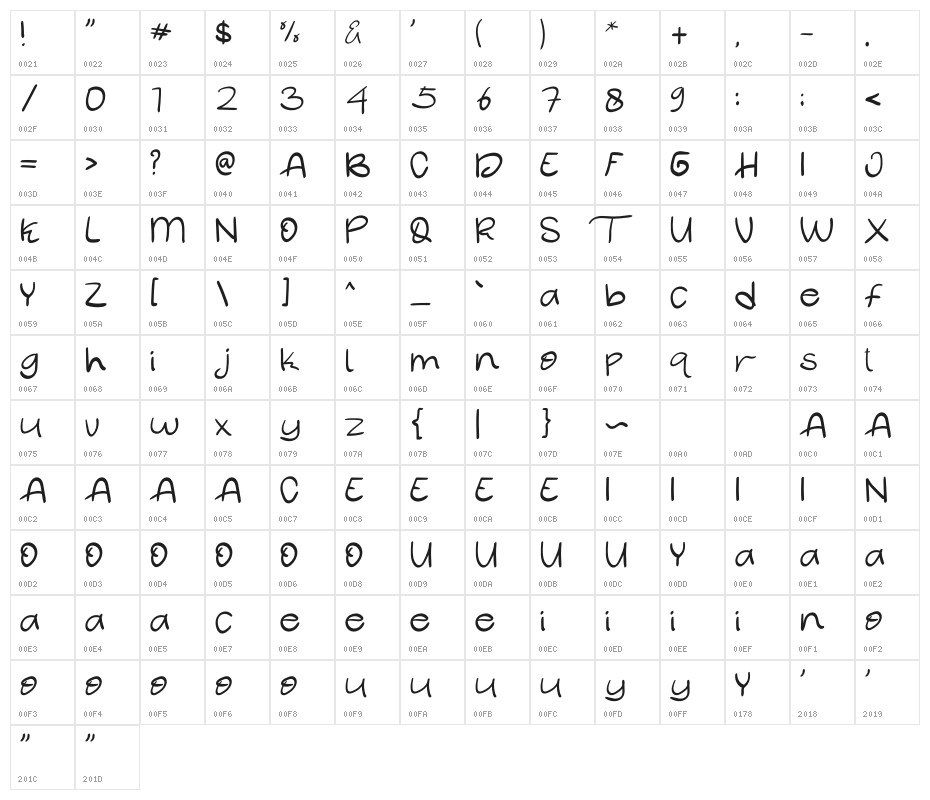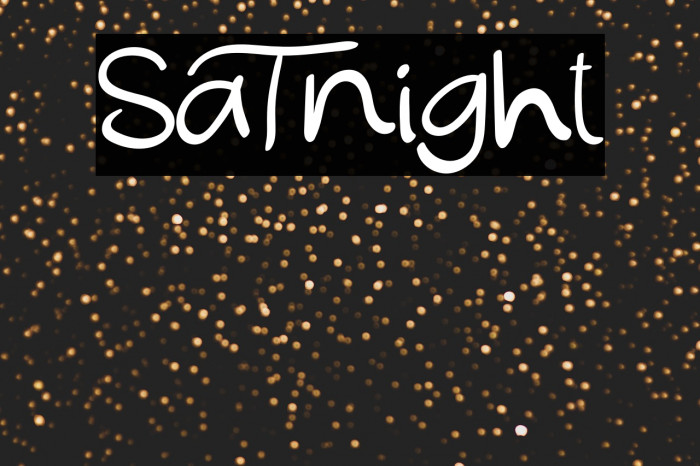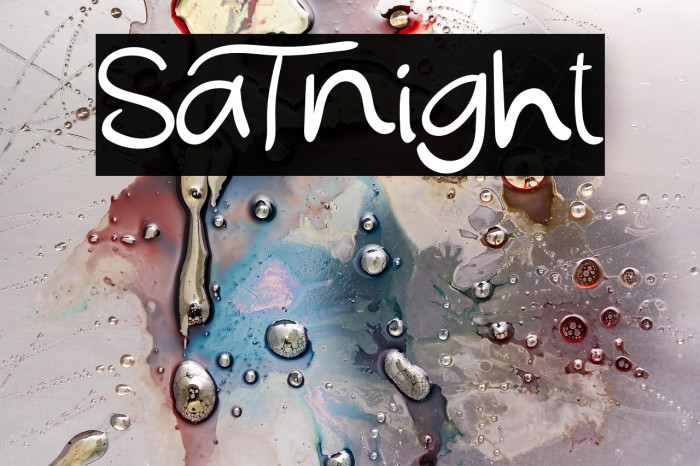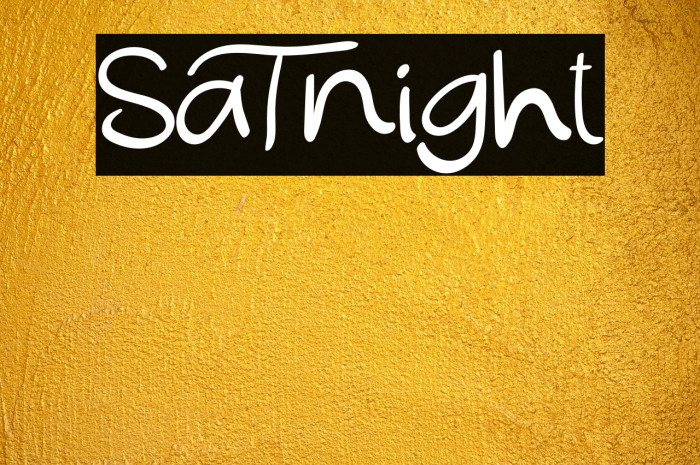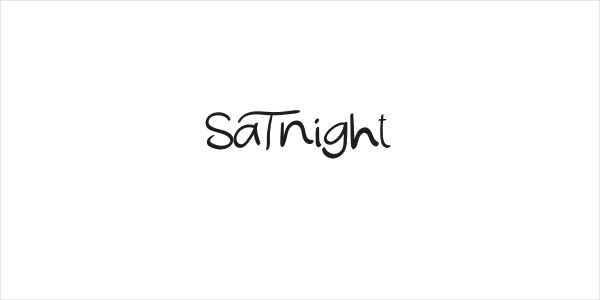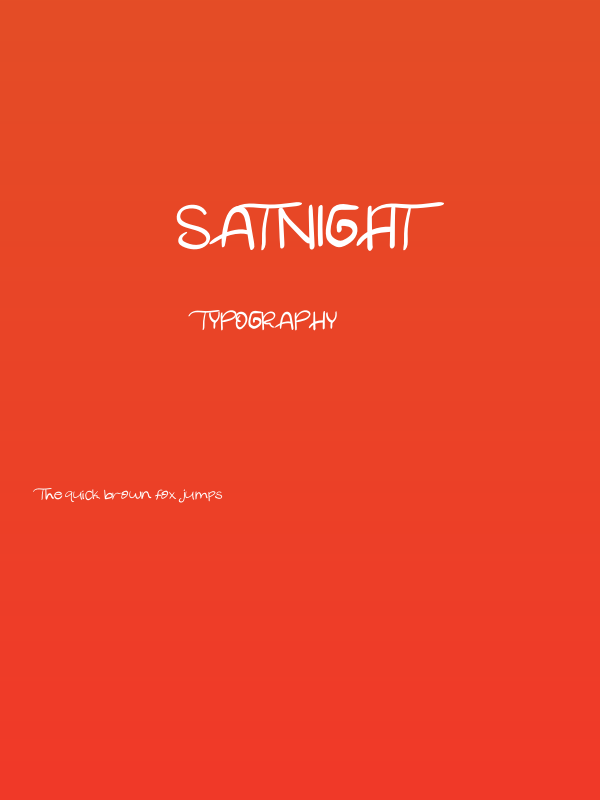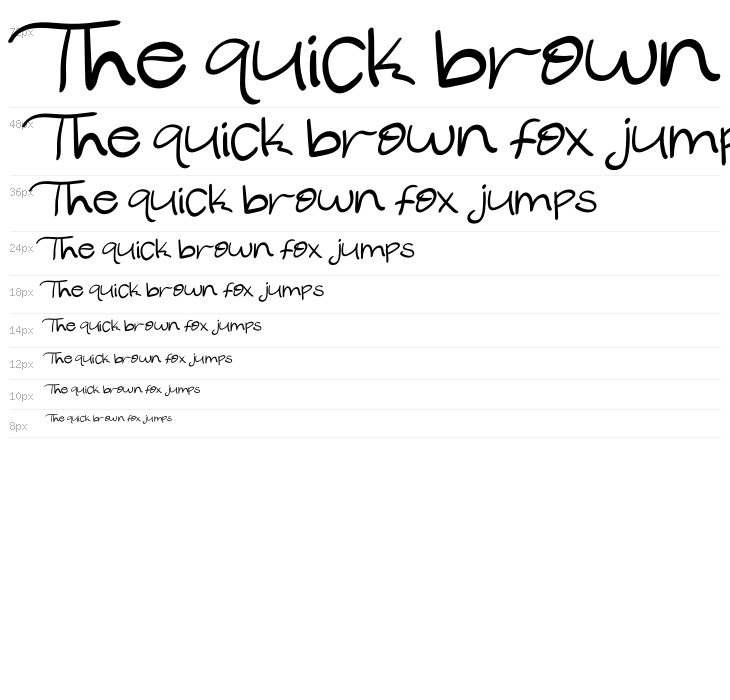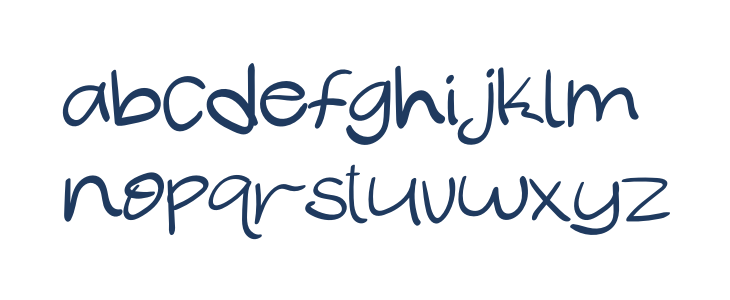
SaTnight Font
SaTnight Description
This playful and energetic font features a handwritten style with a casual, informal appearance. The letters are slightly slanted, giving a dynamic and lively feel. The strokes are smooth and rounded, with varying thickness that adds a touch of whimsy. The uppercase and lowercase letters maintain a consistent style, while the numerals and special characters complement the overall look. This font exudes a friendly and approachable vibe, making it suitable for projects that require a personal touch.